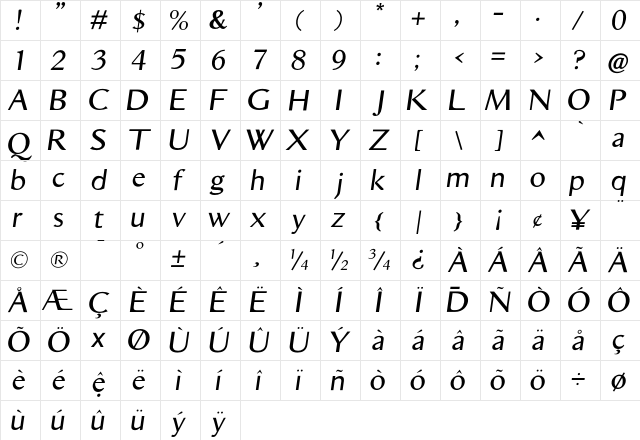
Aristocrat Oblique
Designer: Ben Mahaffey
Design Context for Aristocrat
Aristocrat is a composed and adaptable typeface that performs quietly and consistently across a wide range of design contexts. The slanted form adds forward momentum and visual energy.
Pro Tip: Use Aristocrat for emphasis, pull quotes, and subheadings where its slanted energy can add rhythm to the layout.